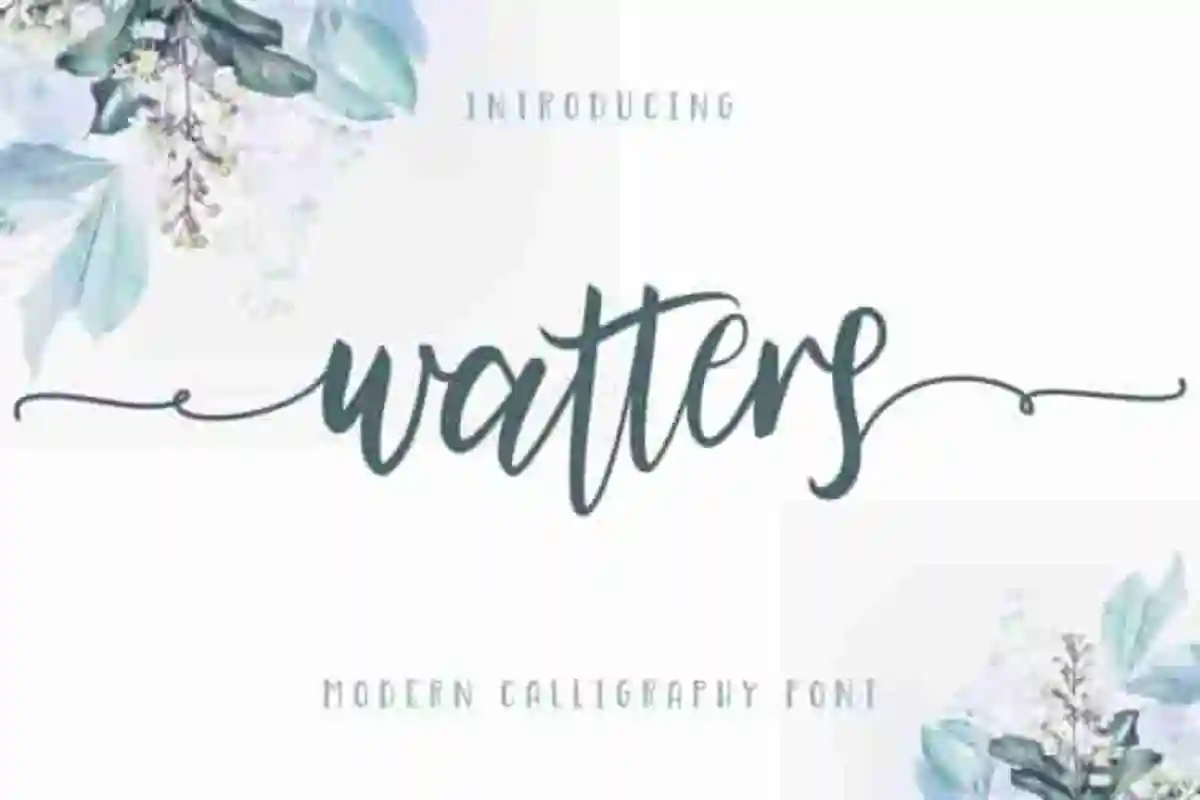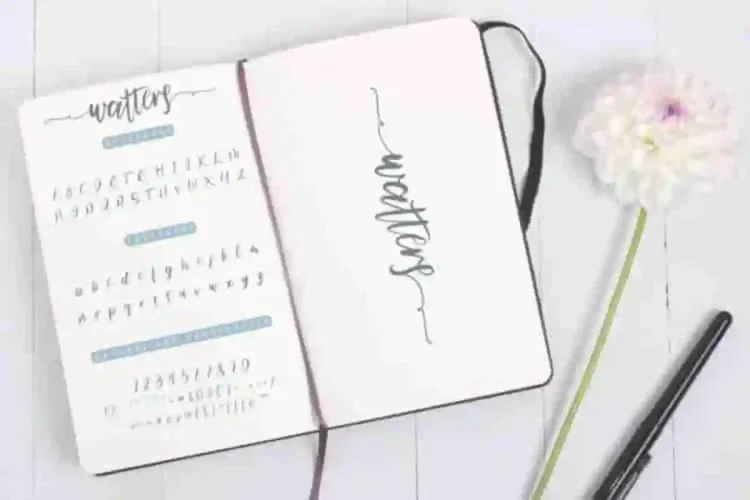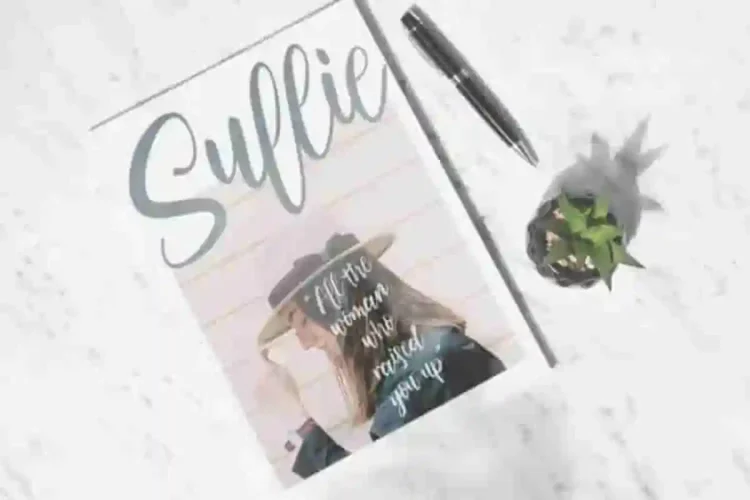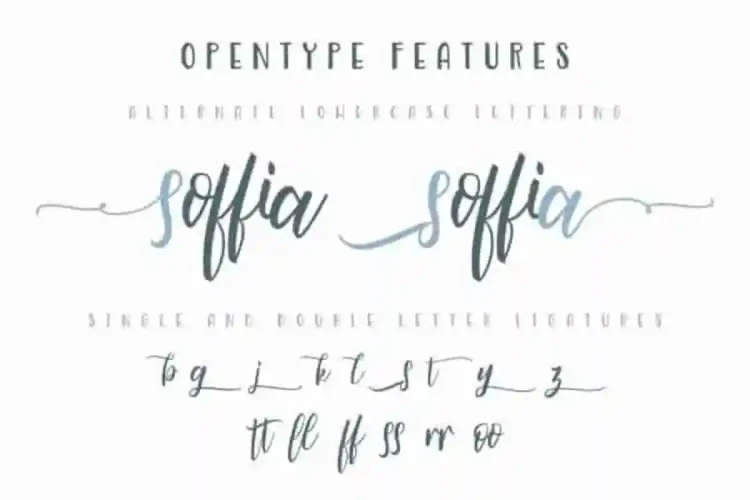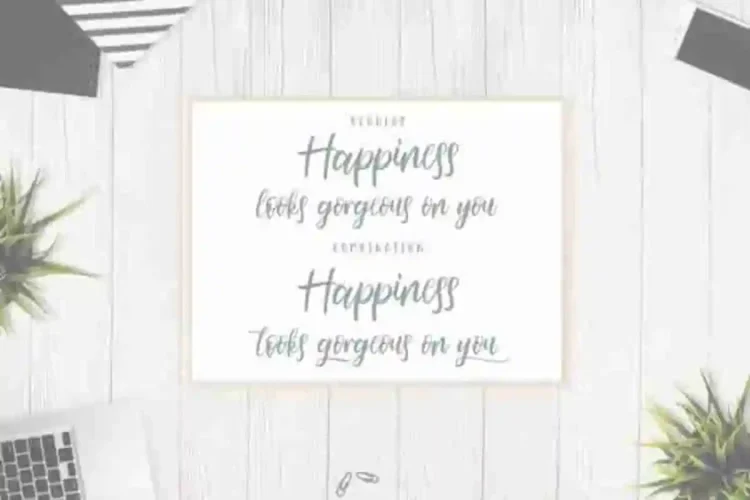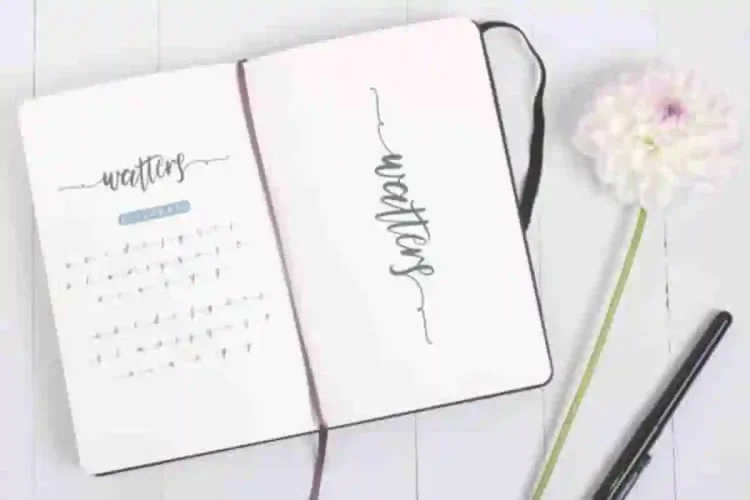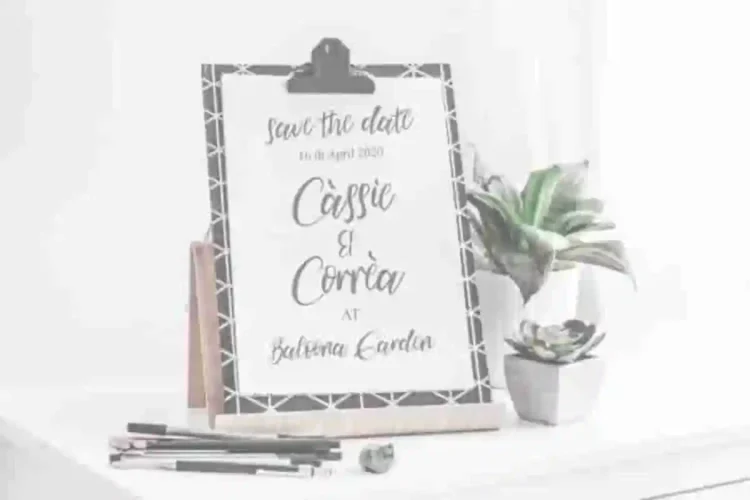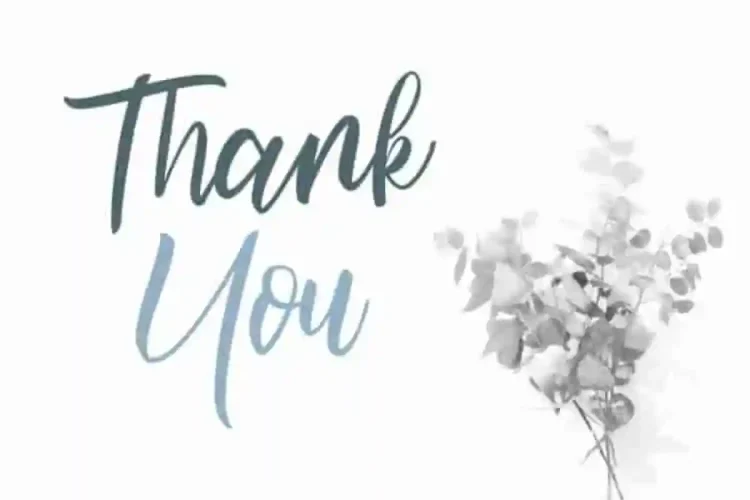
Watters Calligraphy Brush Font
Today EdricStudio is going to present one of our latest font which is perfectly crafted from our studio. Please welcome : Watters Calligraphy Brush Font
This new font is a calligraphy Font, with a stylish and elegant style. With this font you can explore many industries and designs categories. With an extendend licenses you can create anything you want : Branding (logo, stationery, bizcard, head letter, folder etc), promotions stuff (flyer, brochure, postcard etc), Digital marketing (Banner, Ads, cover etc), Personal Invitation, Magazine, Website etc